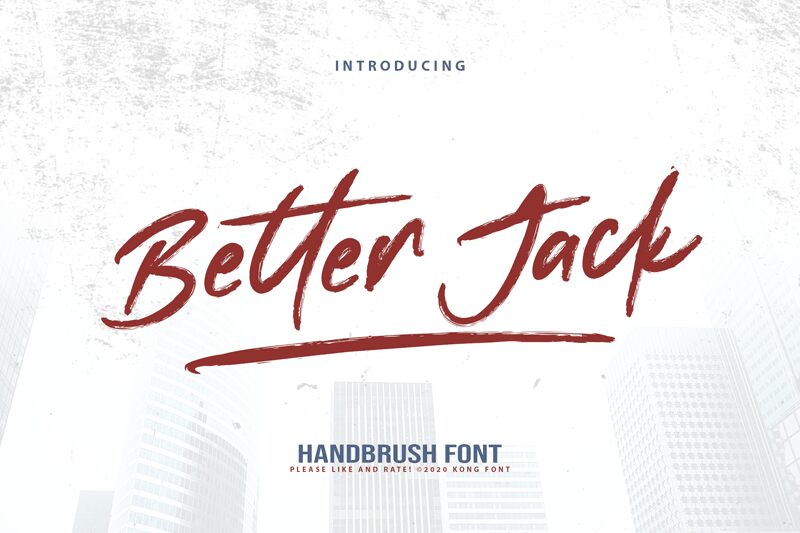
Better Jack font family by Kong Font is a stunning free brush font that is dynamic, energetic, and modern. The font is characterized by its hand-drawn cursive appearance with thick uneven strokes. It comes in four different styles with rounded curvilinear letterforms, and features perfect combinations of lowercase and uppercase letters. Letters are often incomplete, with ink drops and dashes completing the creative look in a font that can easily make you stand out and deliver the right impressions.
Perfect for branding projects, Better Jack can be used for business cards, brochure headings, flyer titles, banners, social media posts, and interesting poster designs. Fashion brands looking to make an impact with their online presence can feature the font on their digital platforms and showroom websites. Packaging designs, greeting cards, typography, and Google display ads can also be created with this beautiful effect.